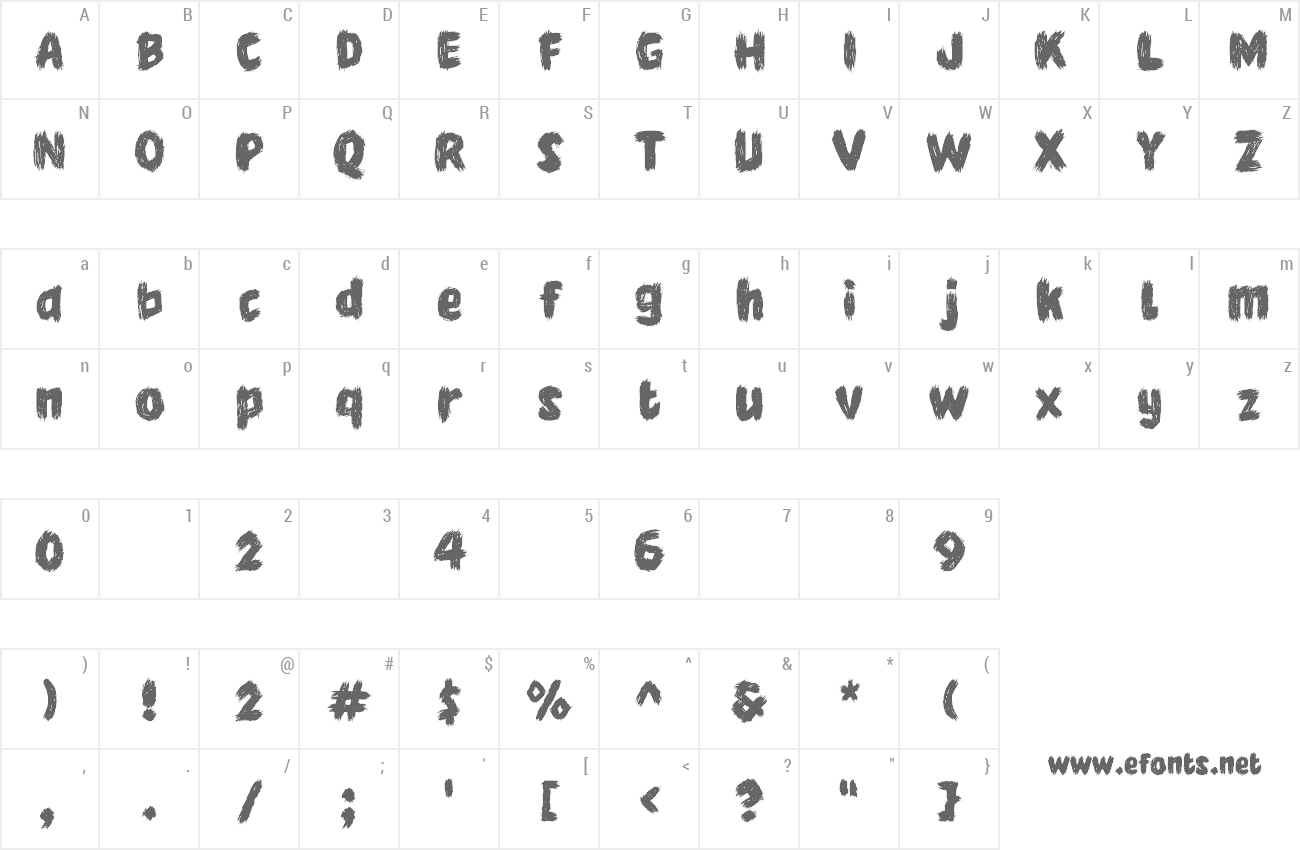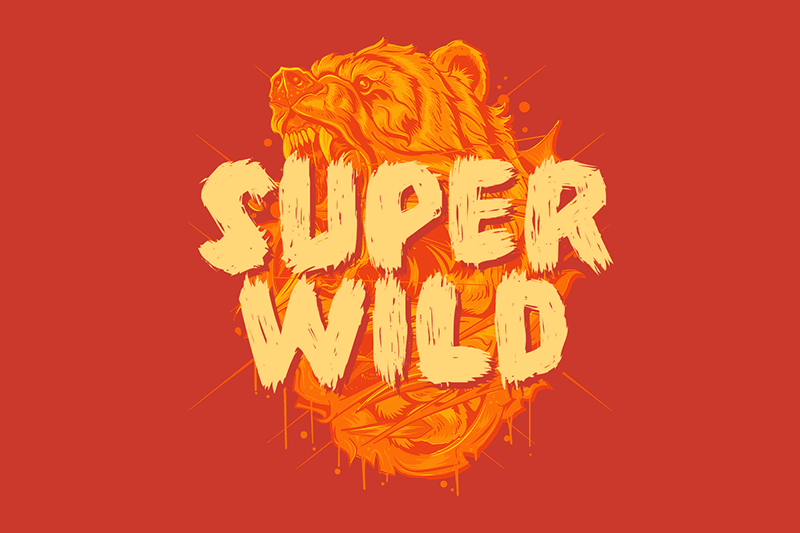
Preview and download Super Wild Font. Created by fsuarez913 in Script Brush styles with Free for personal use license.
This font is for PERSONAL USE ONLY!. If you want to use this font for commercial purposes, you will need to purchase a commercial license. You can purchase a commercial license at https://nhfonts.etsy.com/listing/1785856950/super-wild-font Super Wild is a bold and expressive brush script, characterized by its wild, organic strokes and rough-hewn texture. Each letter is unique, with varying line widths and pressure, creating a dynamic and energetic feel. The font's irregular and spontaneous nature adds a touch of authenticity and personality to any design. Perfect for projects that require a raw, edgy, and hand-written aesthetic. |